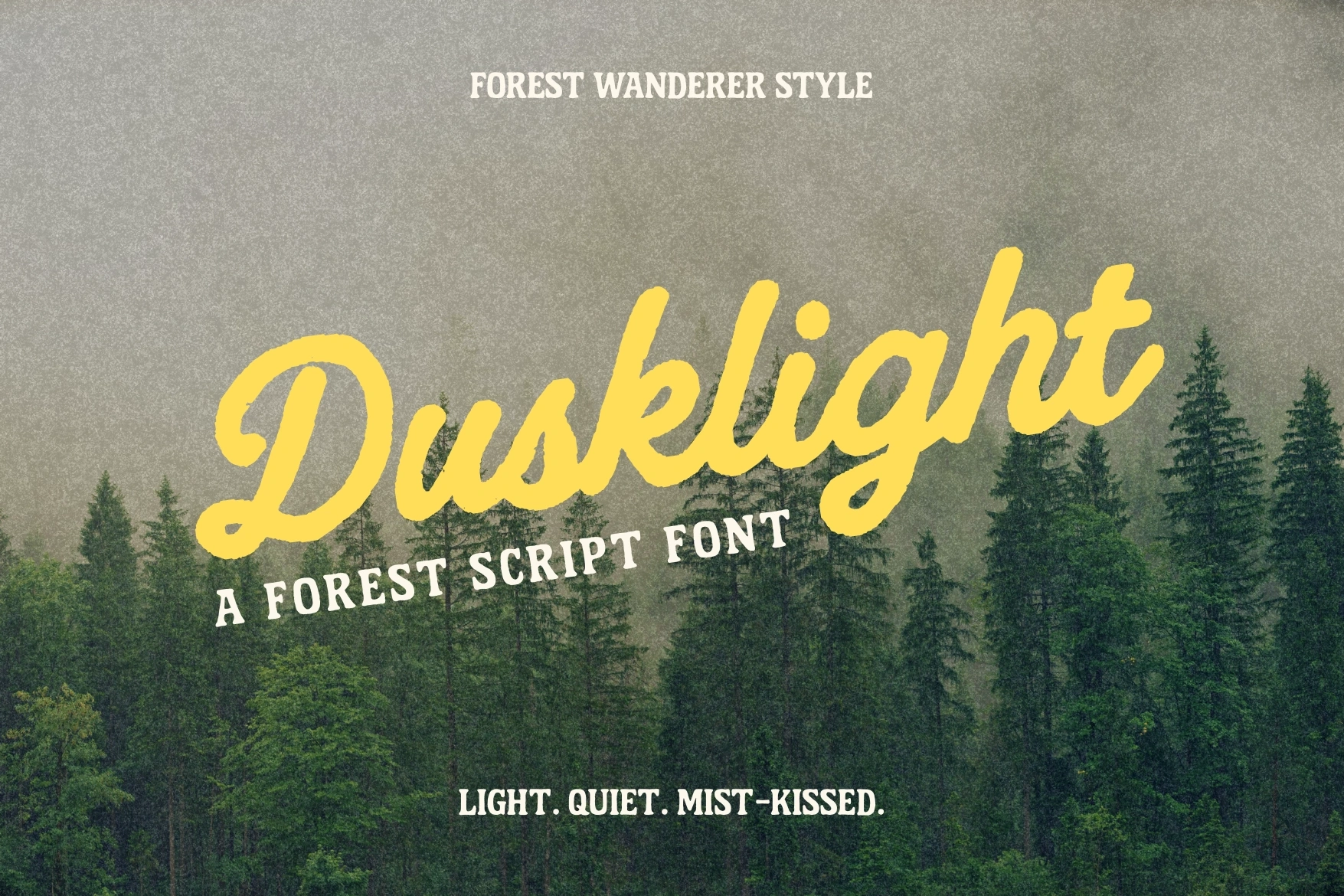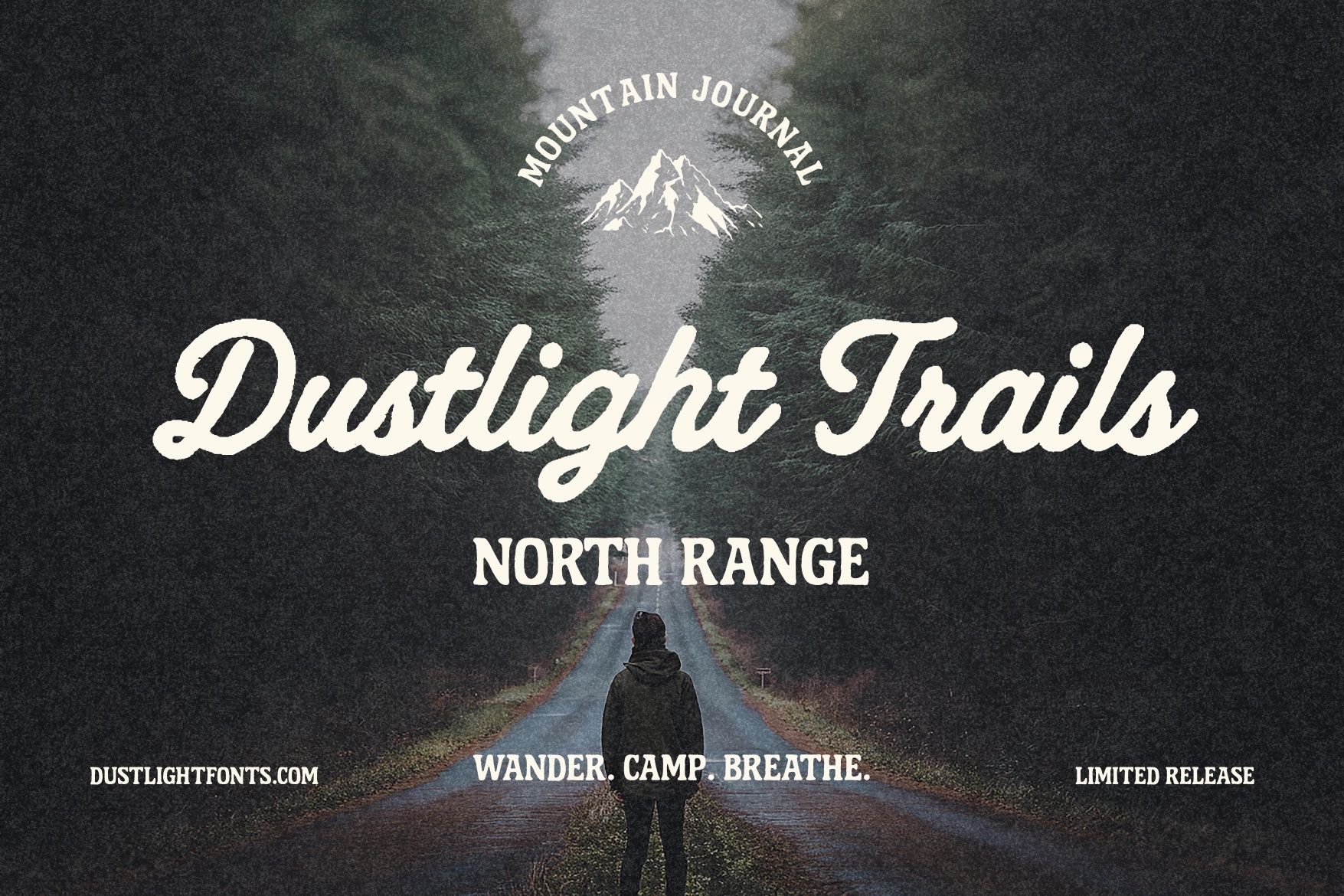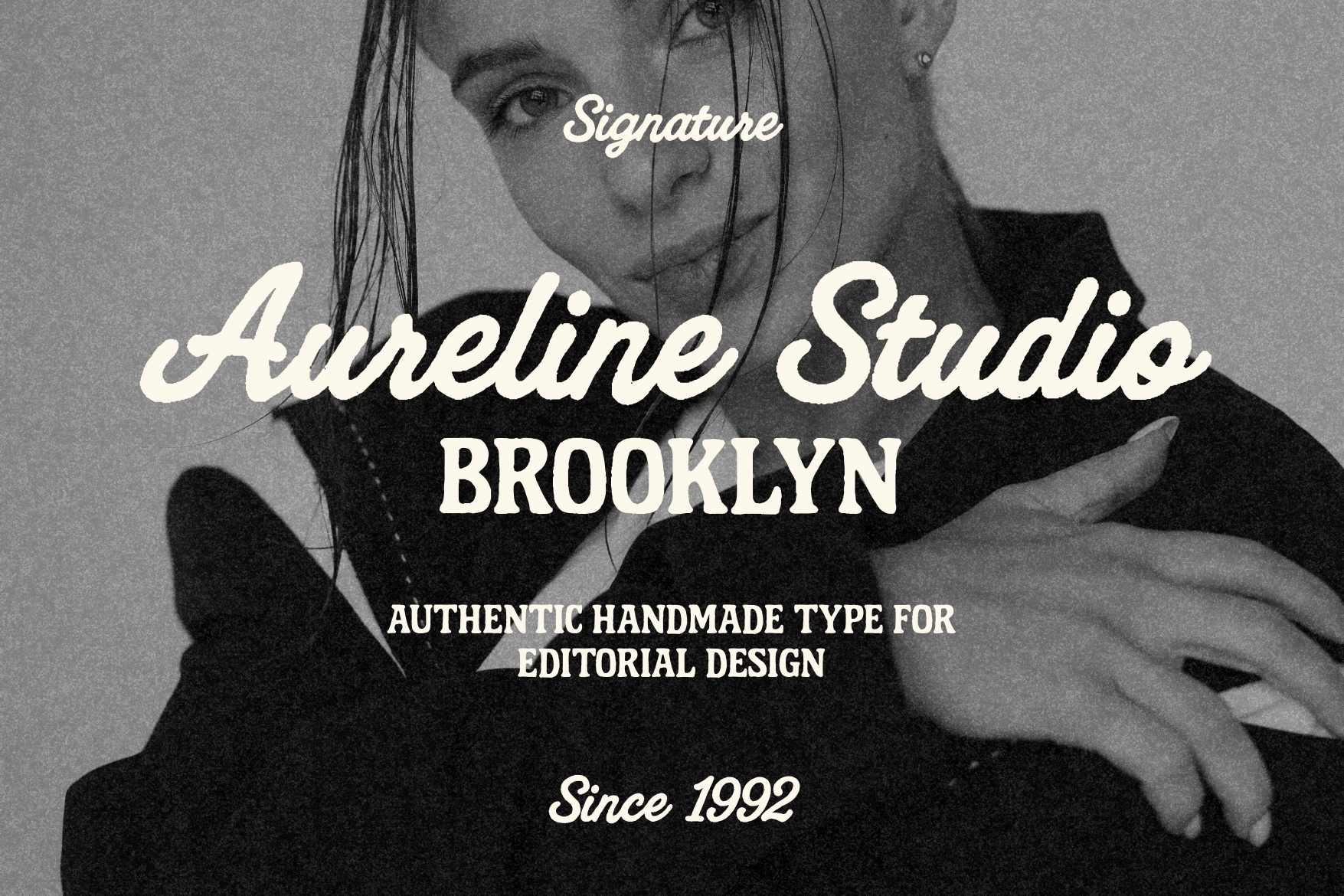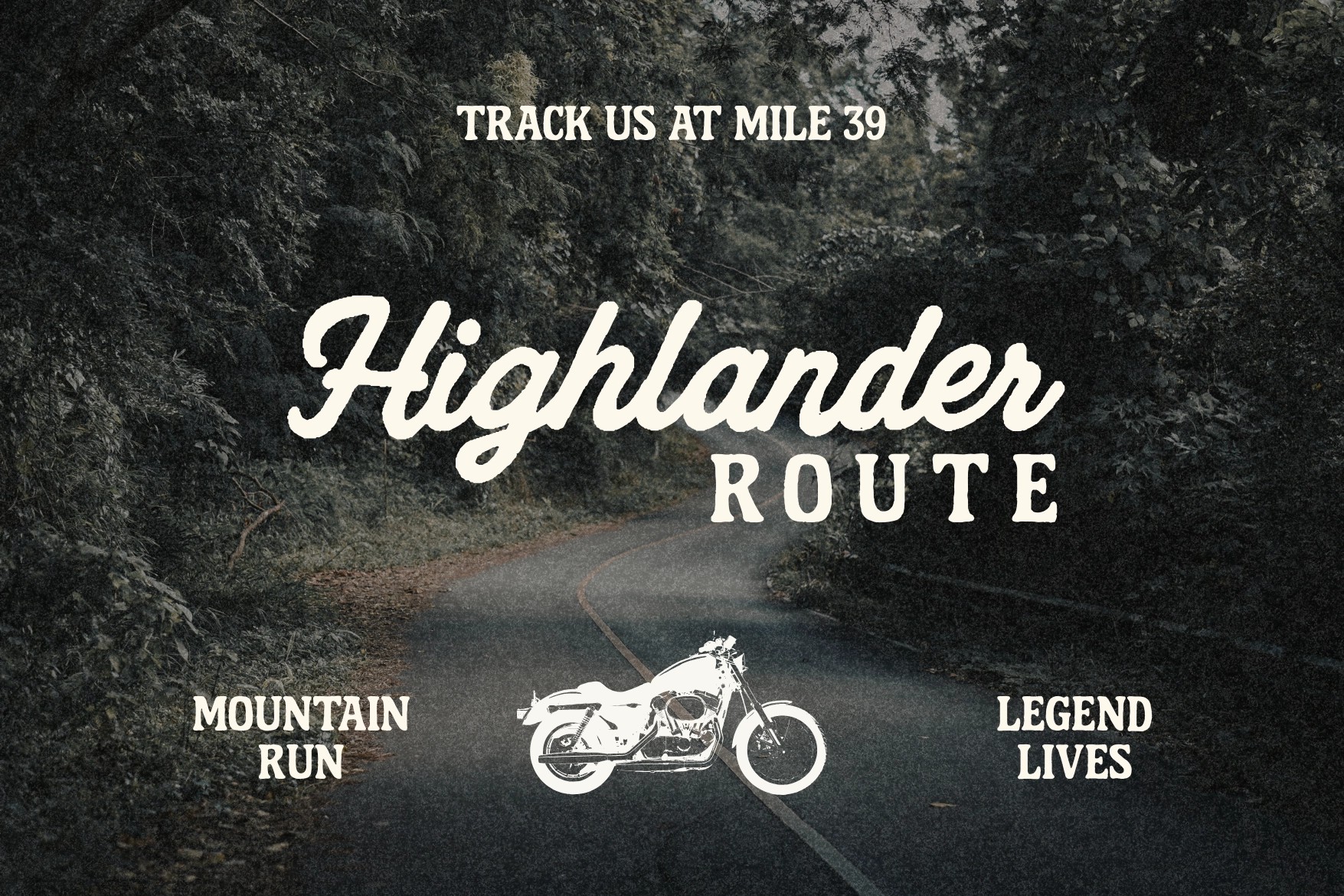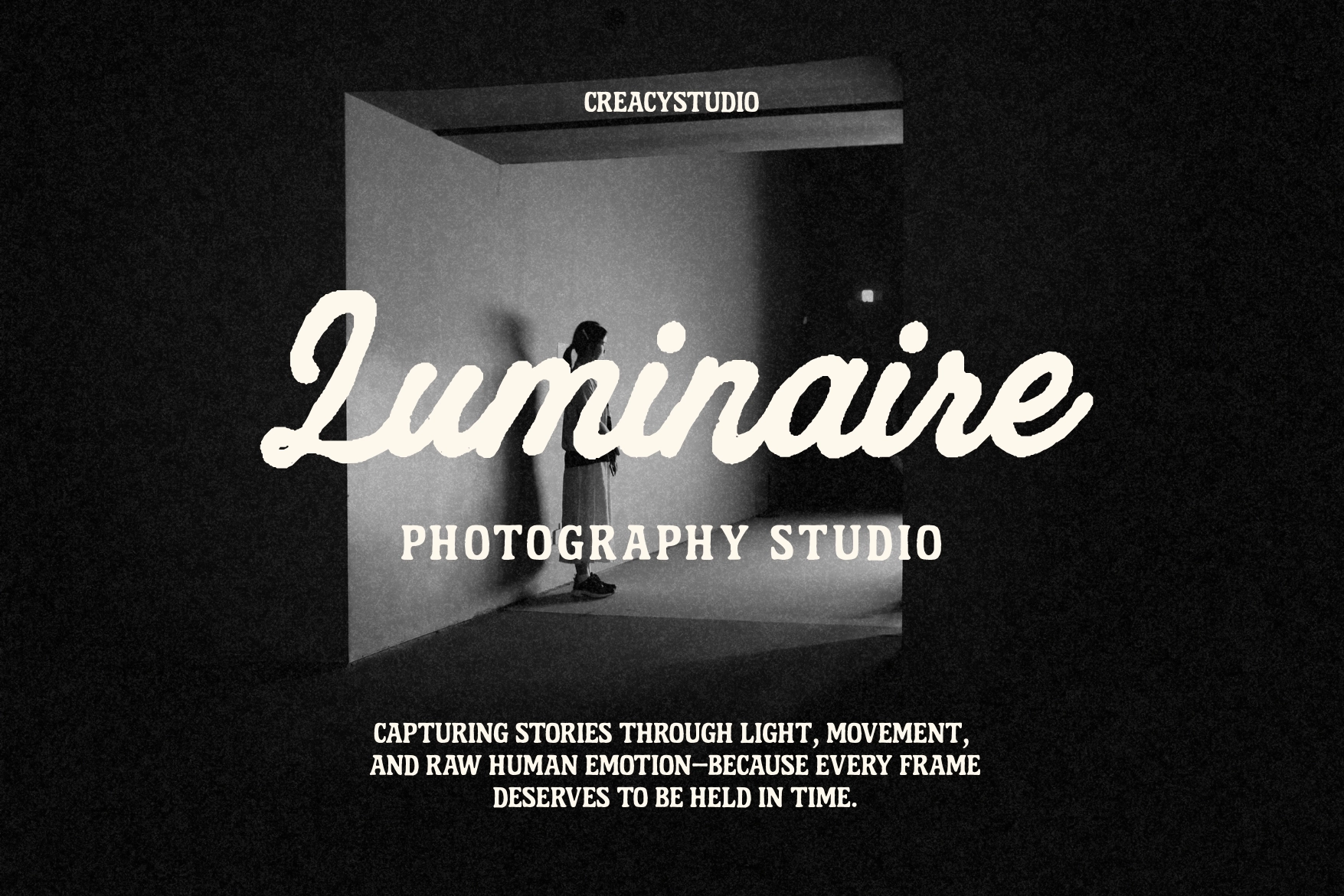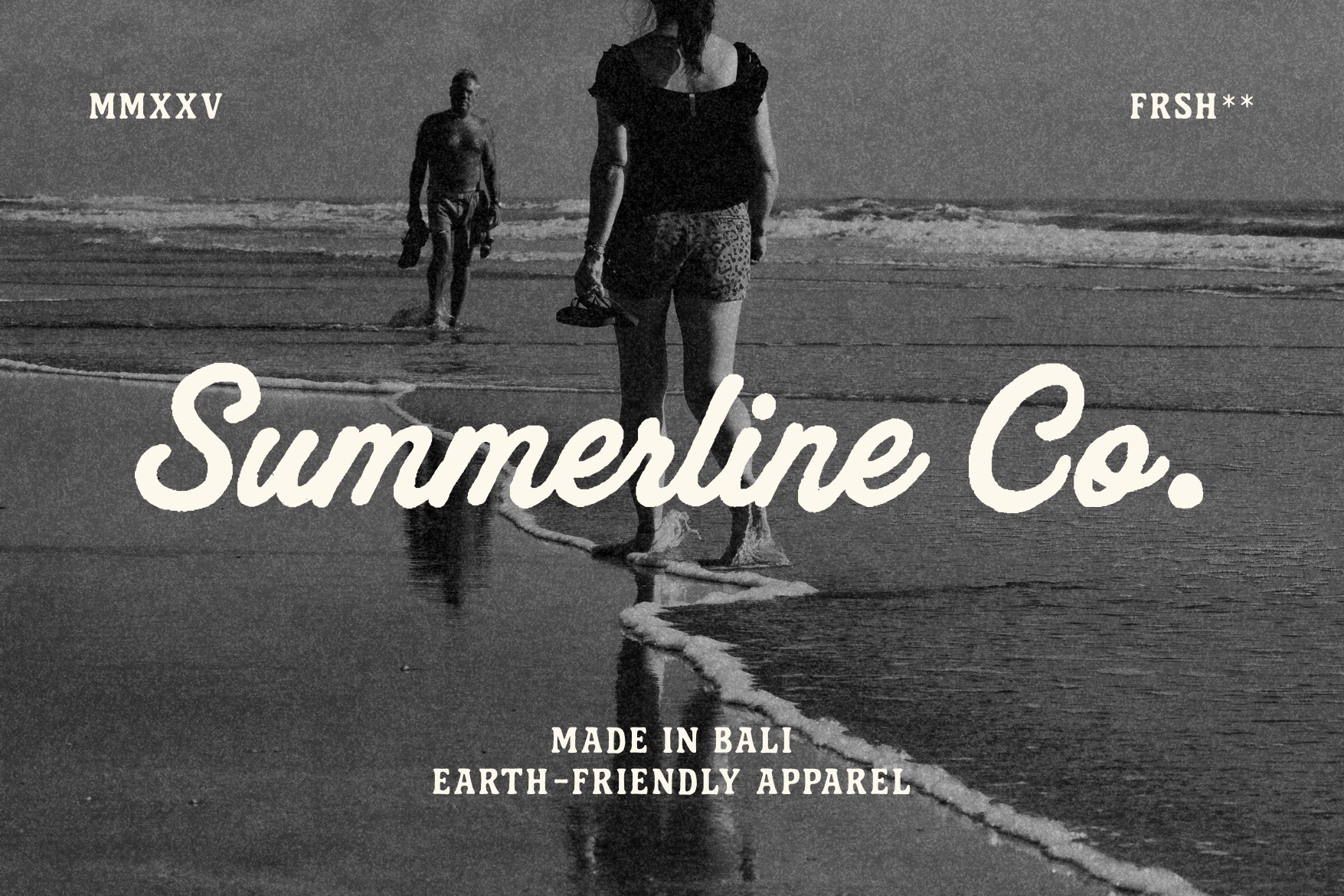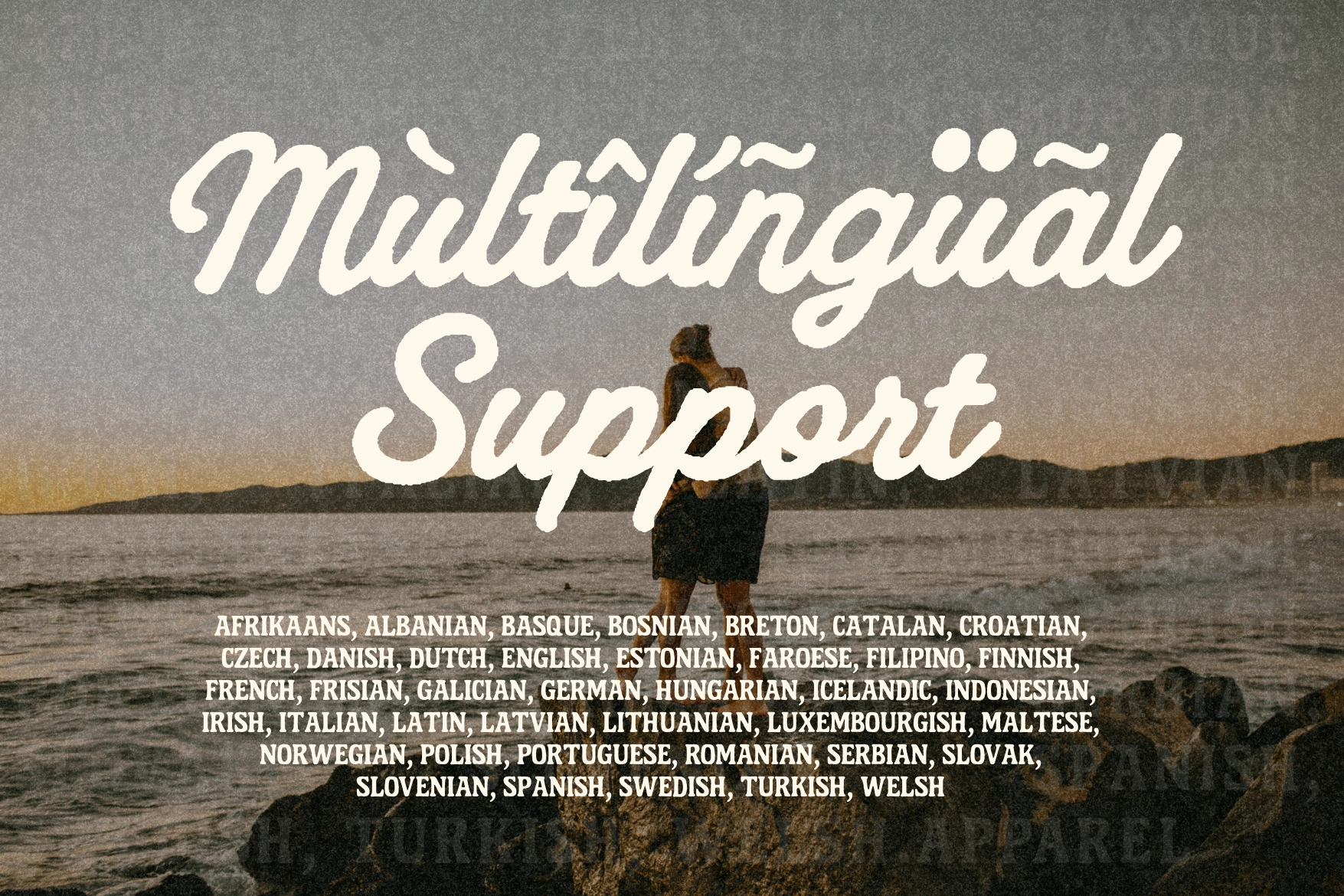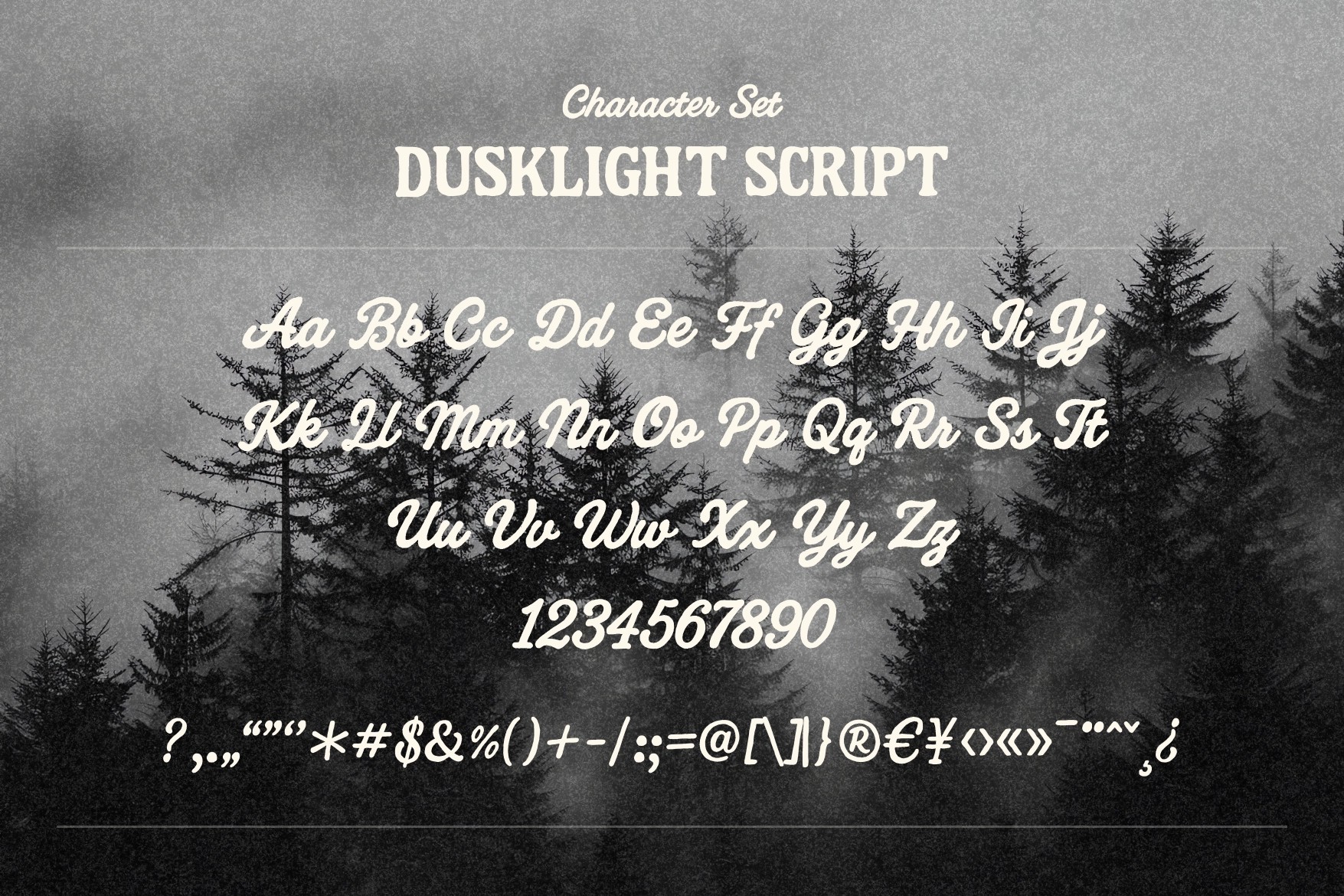
Dusklight Script — Retro Forest-Inspired Font
Dusklight Script is a retro-inspired script font crafted with smooth monoline strokes, rounded terminals, and a warm vintage texture. Designed to evoke the quiet atmosphere of misty forests and analog film tones, this typeface brings an expressive handmade character to any creative project.
Its flowing curves and balanced forms make Dusklight Script highly versatile—perfect for branding, editorial design, outdoor campaigns, apparel graphics, and photography-based layouts. The font pairs beautifully with textured backgrounds and nature-themed imagery, delivering an authentic, organic visual mood.
- Retro script style with gentle slant
- Smooth monoline letterforms
- Uppercase & lowercase characters
- Natural vintage texture
- Refined spacing & kerning
Perfect For:
- Outdoor branding & nature products
- Editorial & magazine layouts
- Apparel prints & product packaging
- Photography studios
- Social media graphics
- Logos, titles & display design